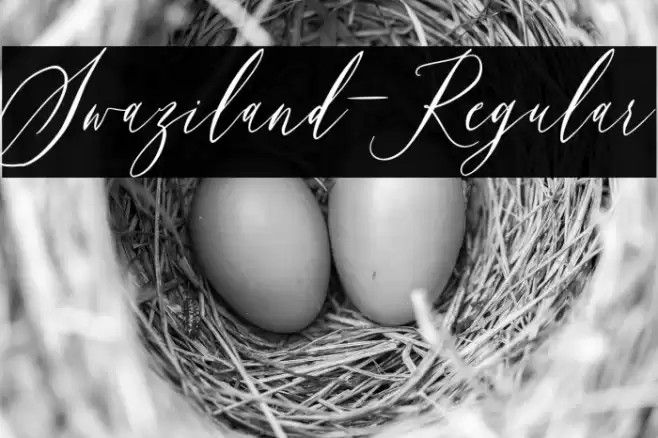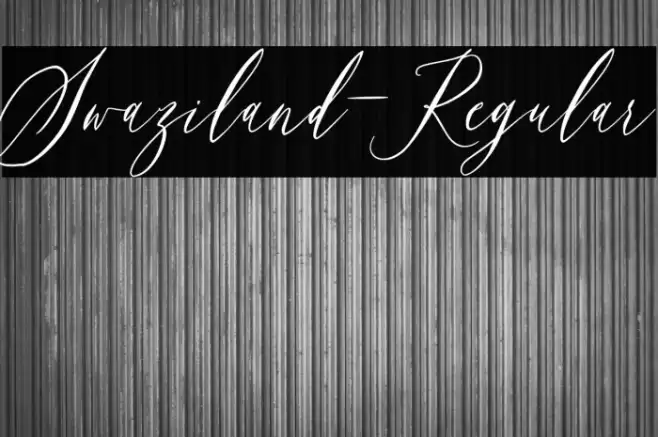
Swaziland-Regular Font
Swaziland-Regular Description
This elegant script font features flowing, cursive strokes that exude sophistication and grace. The uppercase letters are tall and slender, with sweeping curves and delicate loops that add a touch of refinement. The lowercase letters maintain a consistent style, with smooth connections and fluid lines that enhance readability. The numerals are designed to match the overall aesthetic, offering a harmonious blend of style and functionality. Special characters are crafted with the same attention to detail, making this font suitable for a variety of applications where elegance is key.
An elegant and sophisticated script font with flowing cursive strokes from Regular fonts.
- Proposed Projects: Ideal for wedding invitations, elegant branding, luxury product packaging, and high-end editorial design.
- Overall Style: Elegant
- Use Case: Invitations, Branding, Packaging